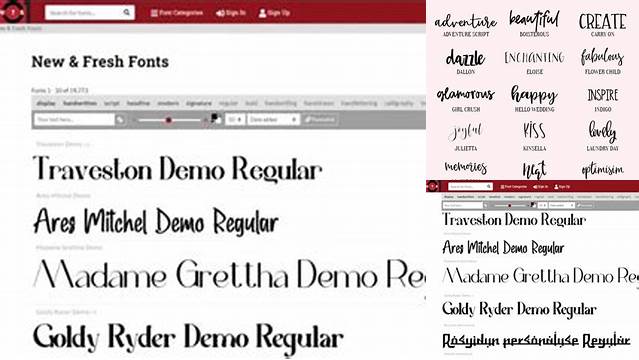
1001Fonts Handwritten Fonts: HTML Integration Guide
Hey guys! Ever wanted to give your website that personal, human touch? Using handwritten fonts can be a game-changer. Today, we're diving deep into how to use 1001Fonts' amazing selection of handwritten fonts in your HTML projects. Let's get started!
What are Handwritten Fonts?
Handwritten fonts, as the name suggests, are typefaces designed to mimic human handwriting. These fonts come in a vast array of styles, from elegant calligraphy to playful scribbles. They can add a unique flair to your website, making it feel more approachable and less sterile. Handwritten fonts are not just about aesthetics; they also evoke emotions and create a sense of authenticity. Think about it: a handwritten note feels more personal than a typed-up document, right? That’s the magic of these fonts!
When choosing a handwritten font, consider the overall tone of your website. A sophisticated brand might opt for a refined script, while a children's website might prefer a fun, whimsical font. The key is to find a font that complements your brand's personality and enhances the user experience. Don't forget to test the font's readability, especially for body text. A beautifully illegible font is no good if your visitors can't read your content! Tools like 1001Fonts offer a fantastic selection, allowing you to preview and download fonts that perfectly match your needs. Whether you're designing a blog, an e-commerce site, or a personal portfolio, handwritten fonts can elevate your design and capture your audience's attention.
Finding Handwritten Fonts on 1001Fonts
1001Fonts is a treasure trove for font lovers. To find handwritten fonts, simply head to their website and use the search bar or browse through the categories. You'll find a dedicated section for script and handwriting styles, making your search super easy. The site also offers various filters, allowing you to narrow down your options based on weight, width, and other characteristics. This is incredibly useful when you have a specific vision in mind.
Once you've landed on the handwritten fonts section, take your time to explore. 1001Fonts provides previews of each font, so you can see how it looks with different text. You can even type in your own text to get a feel for how the font will appear on your website. Don't hesitate to download a few different options and test them out in your design mockups. Remember, the perfect font is out there, and 1001Fonts is the perfect place to start your search. Plus, many of the fonts are free for personal use, so you can experiment without breaking the bank. Just be sure to check the licensing terms before using any font in a commercial project. With its vast library and user-friendly interface, 1001Fonts makes finding the ideal handwritten font a breeze.
Conclusion: Mastering Handwritten Fonts in HTML for Stunning Websites